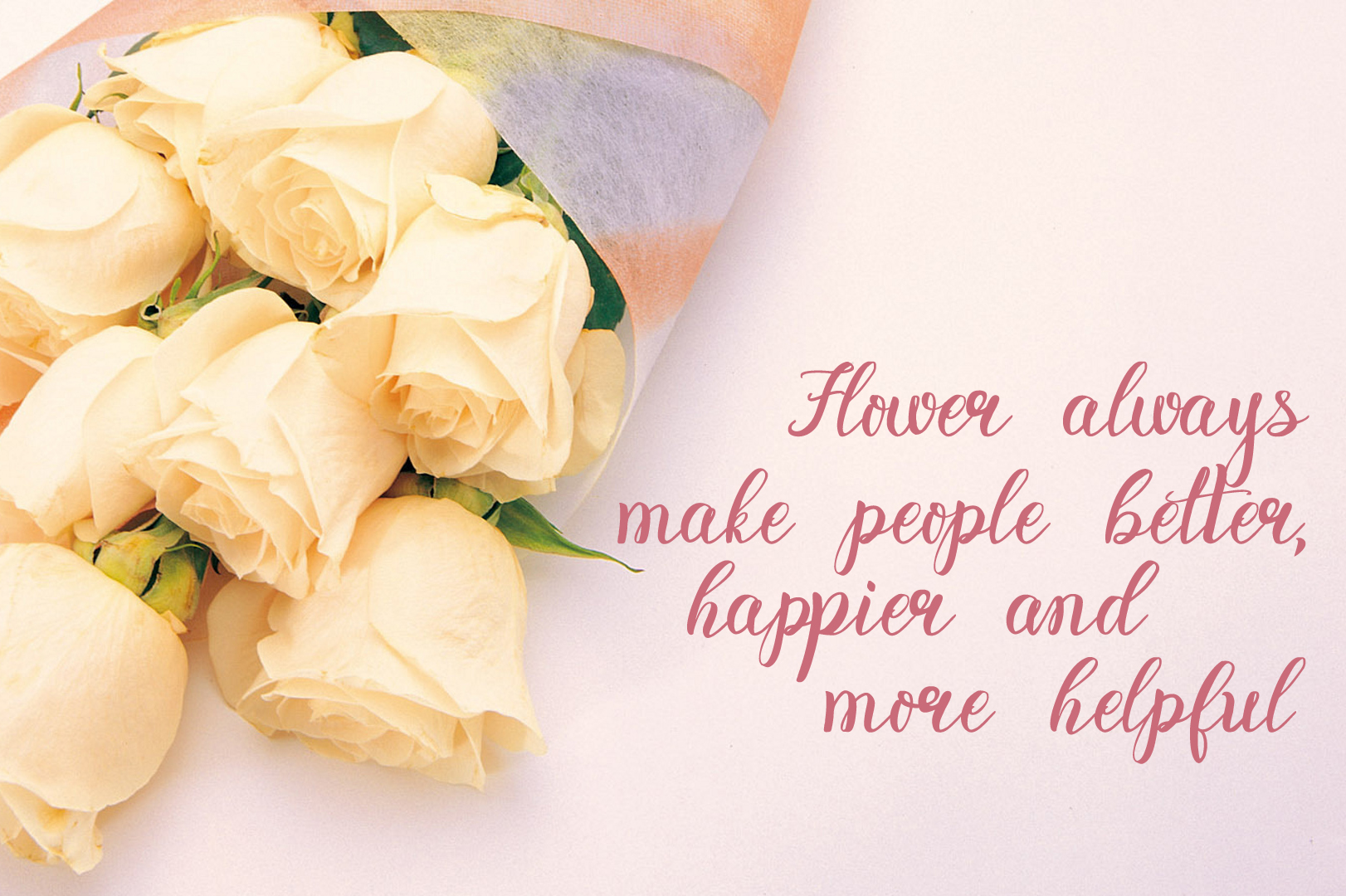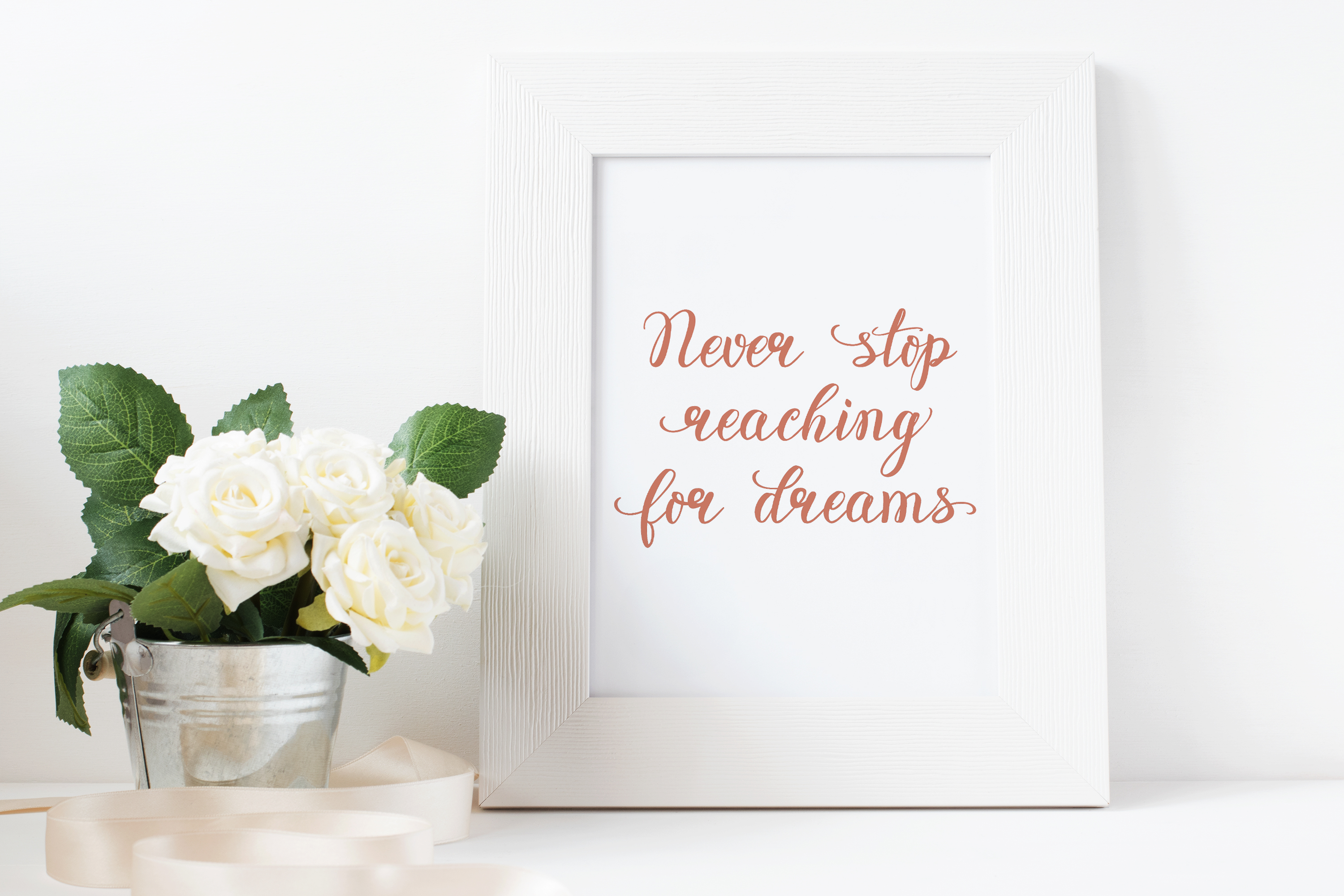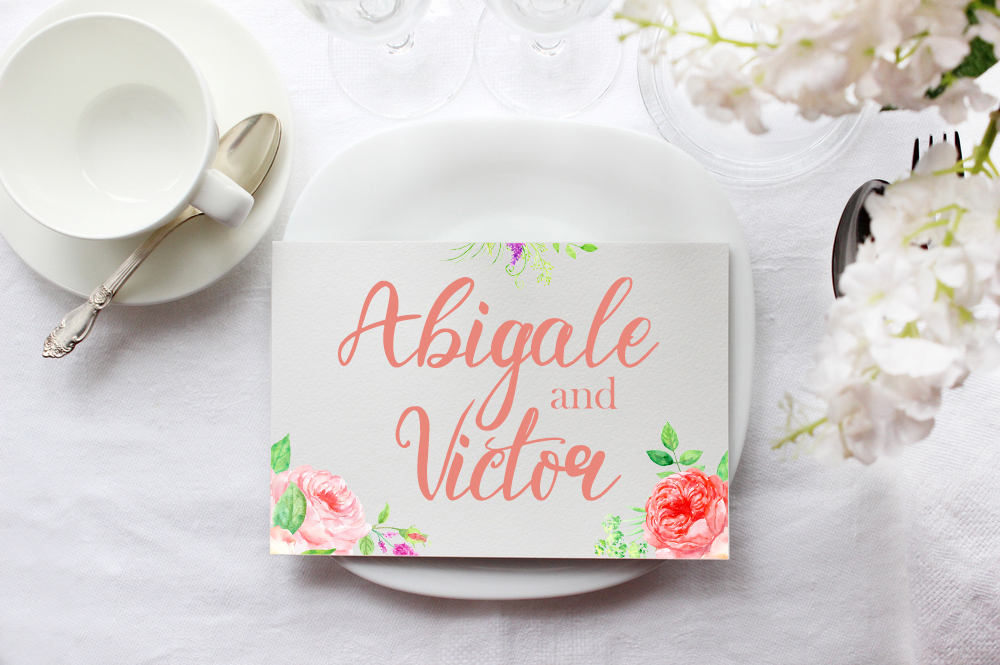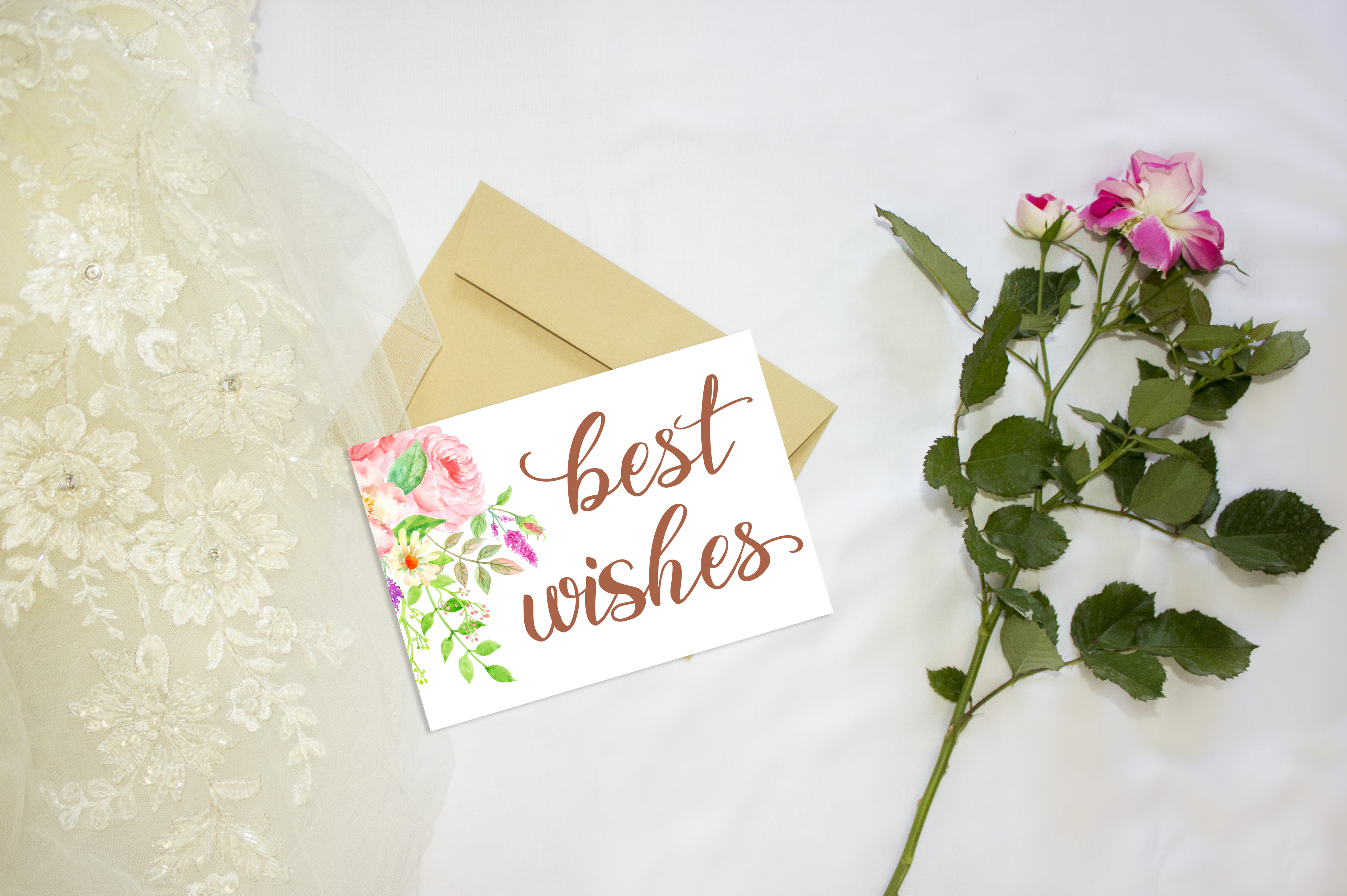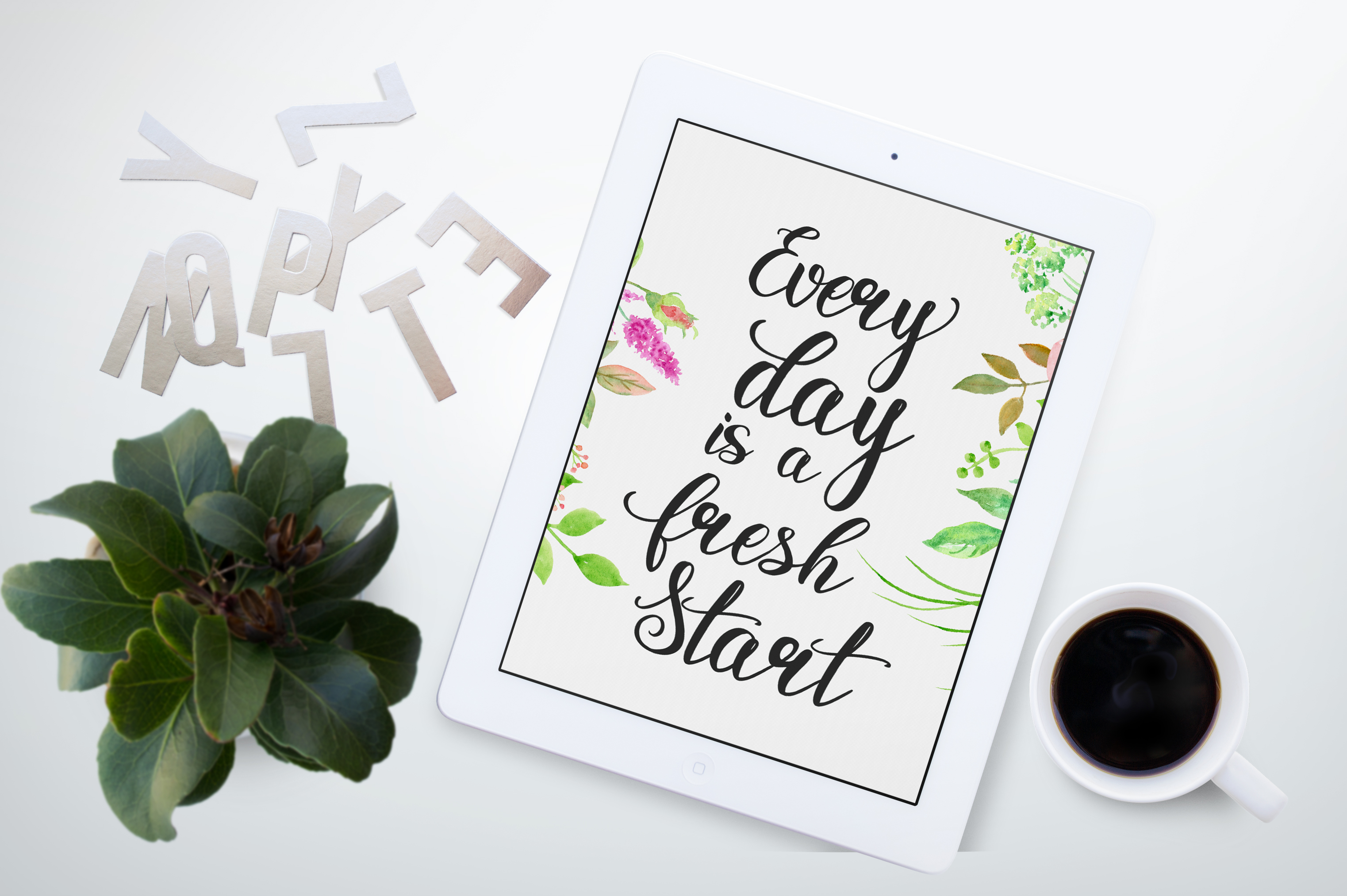
Introduction to Rosita Script Font
Have you ever found yourself in a creative jam, struggling to bring your vision to life? Maybe you’re working on a design project, and you’re stuck on the perfect font to capture the essence of your brand. We’ve all been there. But what if I told you that there’s a solution that can make your life easier and elevate your design to the next level?
Enter the Rosita Script Font, a stunning modern brush font that’s about to become your new best friend. With its wide assortment of character options and high-quality design, this font is a game-changer for any designer looking to take their creative project to the next level. And the best part? It’s available for a free download, making it an invaluable design resource for anyone looking to add some flair to their work.
Key Features of Rosita Script Font
- High-quality, elegant script font perfect for creative projects that require a touch of sophistication.
- Unique, handwritten style that adds a personal touch to any creative project, making it stand out from the crowd.
Honest Review: Rosita Script Font
I recently came across the Rosita Script Font and was excited to try it out for my latest creative project. As a designer, I’m always on the lookout for high-quality design resources that can elevate my work.
The Rosita Script Font is a beautiful, elegant script font that’s perfect for adding a touch of sophistication to your designs. I love how it can be used for a variety of projects, from invitations to branding materials.
Here are some things that work well with the Rosita Script Font:
- ✨ High quality and professional-looking results
- ✨ Perfect for creative projects that require a touch of elegance
- ✨ Can be used for a variety of design elements, from headers to body text
Overall, I’m impressed with the Rosita Script Font and would recommend it to designers looking for a high-quality script font. While it may have some limitations, the free version is still a great resource for any design project.
How to Use Rosita Script Font
Tips for Getting the Most Out of Rosita Script Font
To get the most out of Rosita Script Font, use it in combination with other design elements, such as images and graphics. Experiment with different font sizes, colors, and alignments to create a unique and eye-catching design.
Rosita Script Font is perfect for a variety of creative projects, including:
- Birthday invitations
- Wedding stationery
Alternatives to Rosita Script Font
Great Vibes is a high-quality script font perfect for creative projects, such as wedding invitations, event flyers, or any design that requires a touch of elegance. It’s free to download and comes with a transparent background, making it easy to use in any design resource. Great Vibes is a great alternative to Rosita Script Font when you need a more modern and sleek look.
Carolyna Pro is a beautiful script font ideal for designing invitations, greeting cards, or any other creative project that requires a touch of sophistication. It’s a high-quality font with a transparent background, making it easy to use in any design resource. Carolyna Pro is a great alternative to Rosita Script Font when you need a more luxurious and elegant look.
Alex Brush is a high-quality script font perfect for creative projects, such as designing logos, branding materials, or any other design that requires a touch of personality. It’s free to download and comes with a transparent background, making it easy to use in any design resource. Alex Brush is a great alternative to Rosita Script Font when you need a more casual and friendly look.